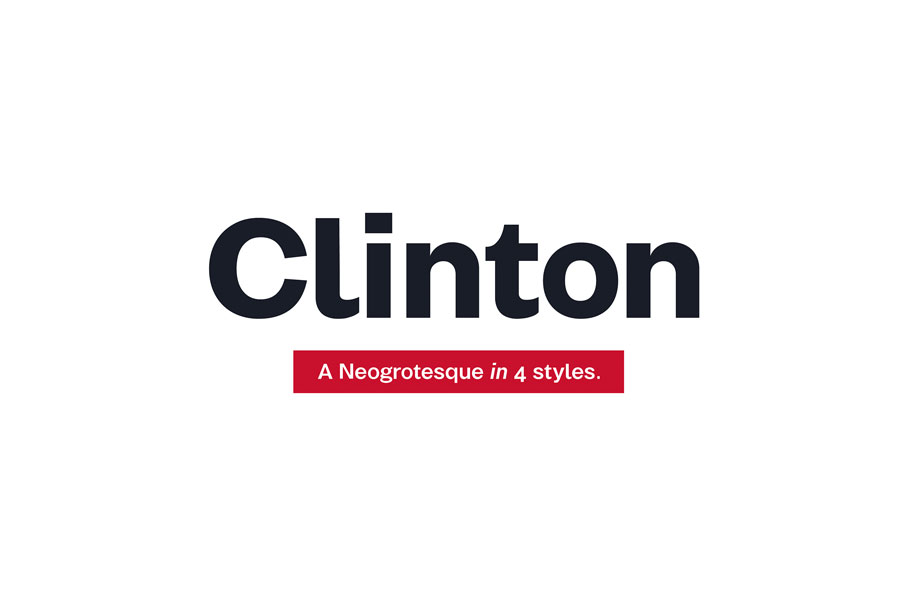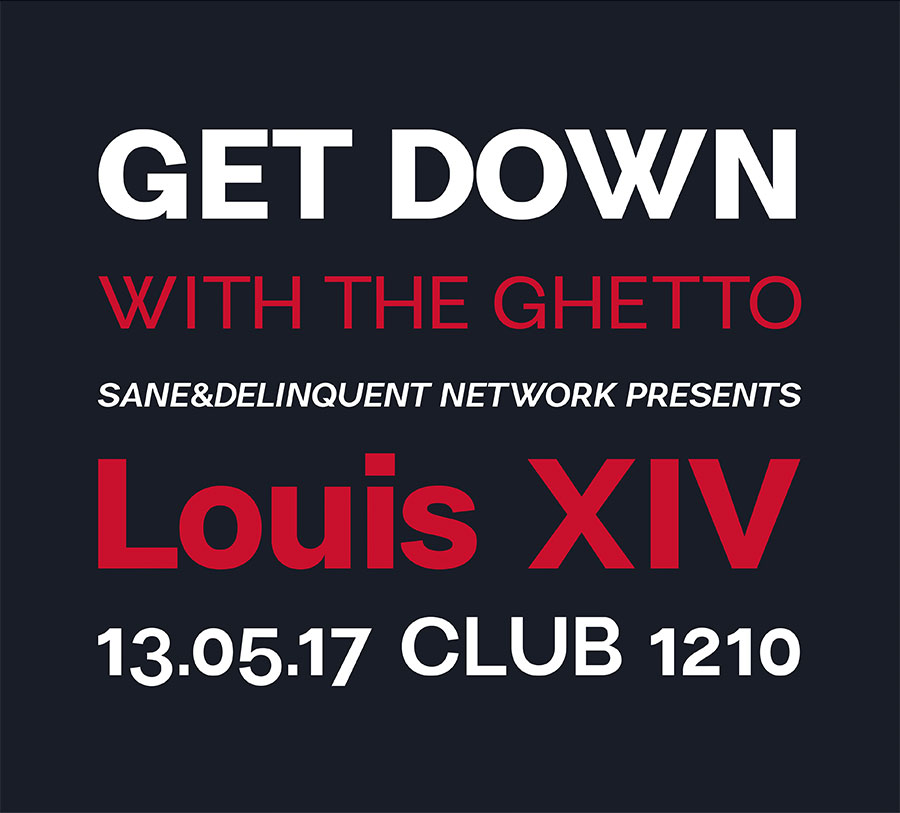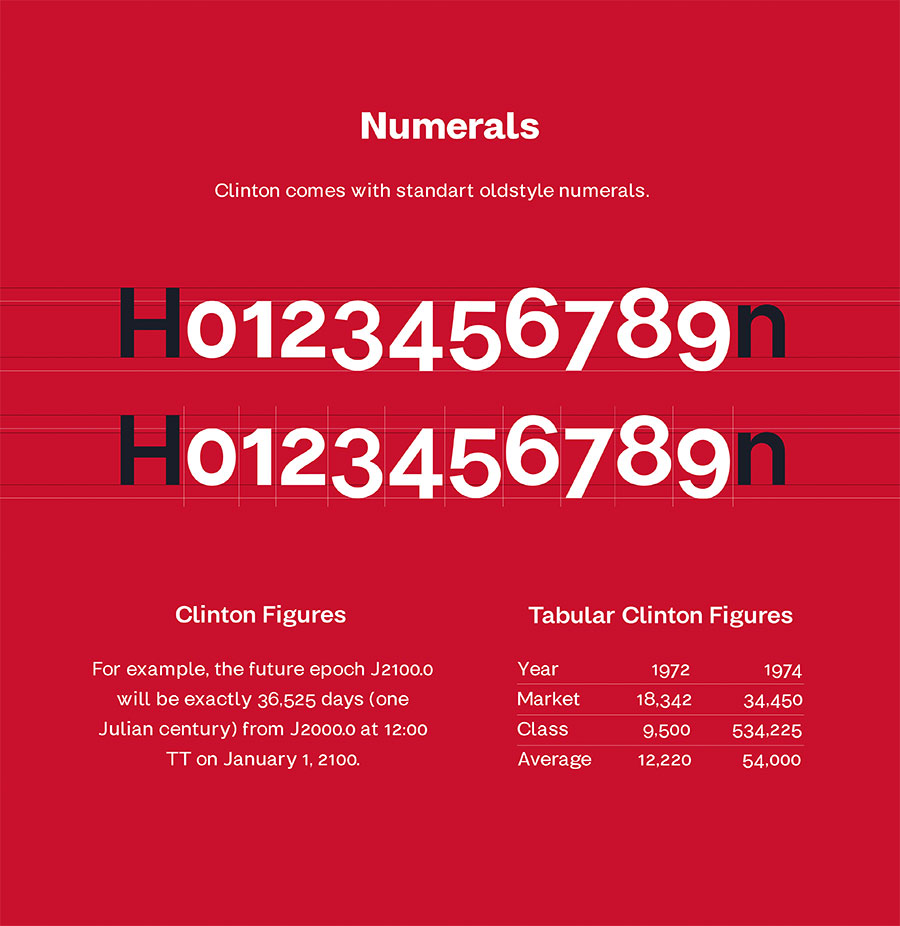
Clinton is a neo-grotesque font of the Grotesk genre inspired by the work of Swiss designers in the 1950s and 60s. It has the neutral design with great clarity, makes it applicable to many mediums including signages, labels, graphics and user interface designs.
Clinton has horizontal terminals, and its uniform widths resulted in a font design that is both highly functional and flexible. Moreover, the tall x-height of Clinton font also makes this font readable in smaller sizes.